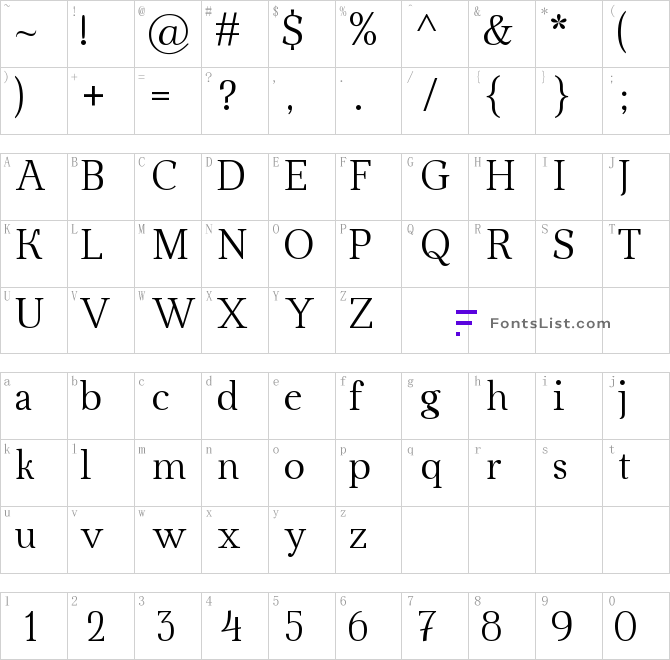
- Font Name:Ahellya
Ahellya.ttf is a very beautiful artistic font, Ahellya.ttf is widely used in the design and printing of various books and pictures,Ahellya.ttf has a strong visual impact,Ahellya.ttf is a commonly used font in newspapers, magazines and books, and is used in posters, e-commerce Poster design, store design, logo design, font design and other fields.Ahellya.